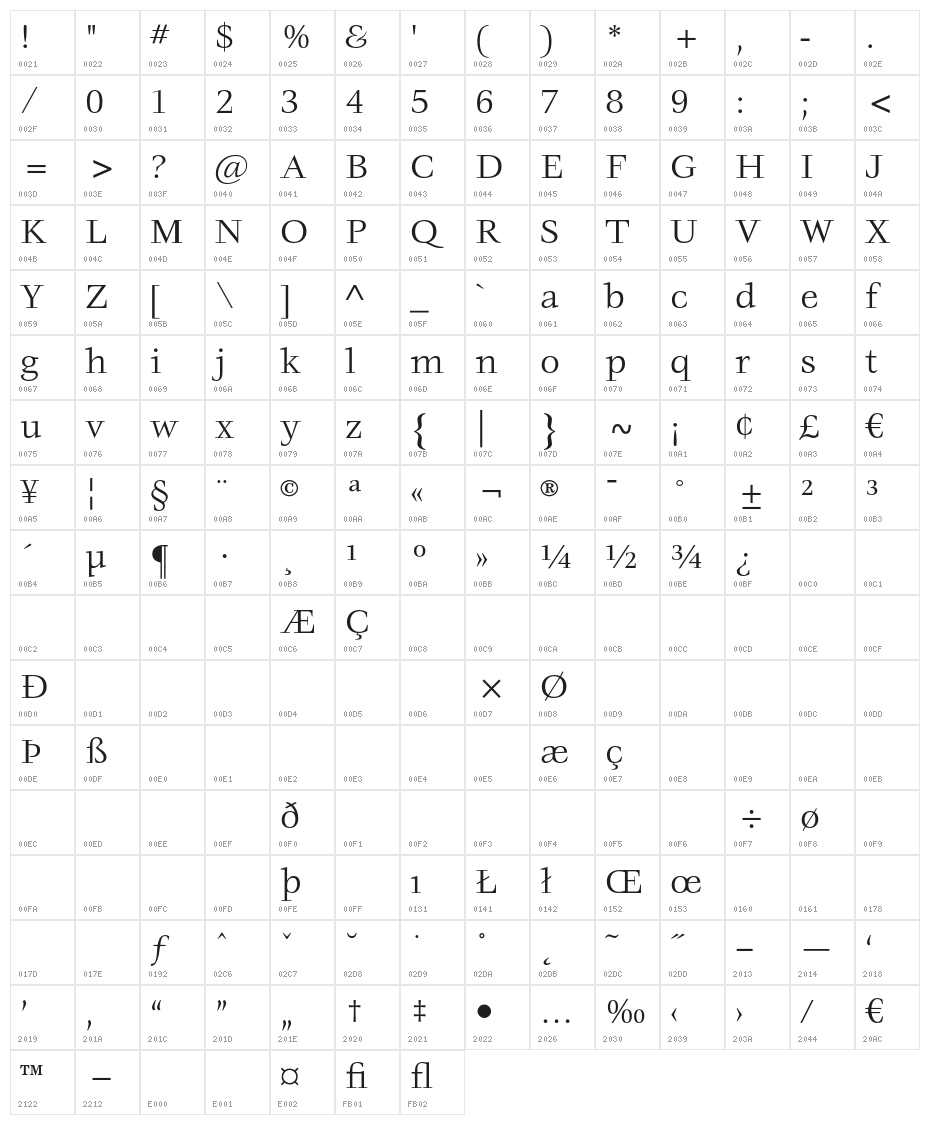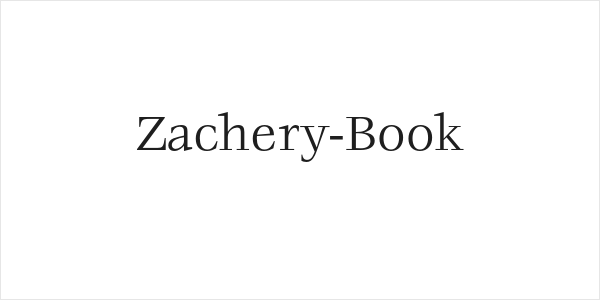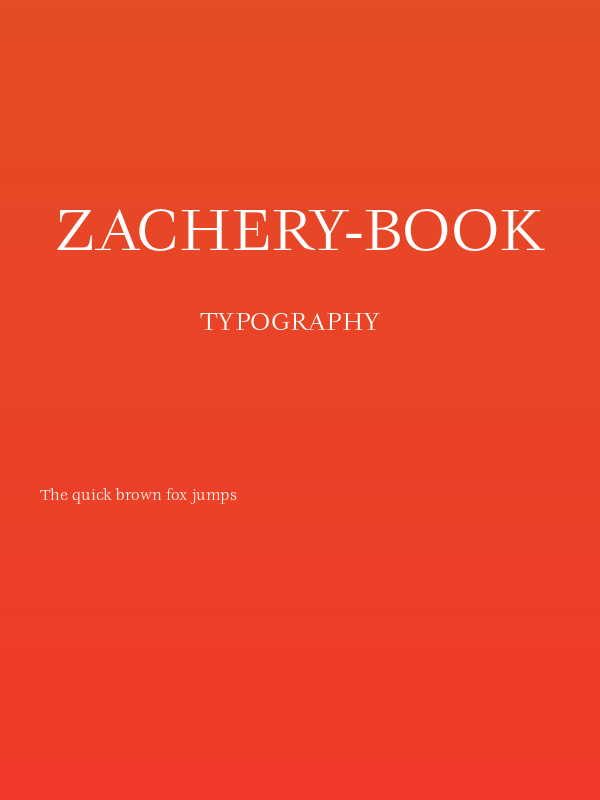
Zachery-Book Font
Zachery-Book Description
This font features a classic serif design with elegant and refined strokes. The uppercase letters are well-proportioned, showcasing a traditional serif style with slight variations in stroke width that add a touch of sophistication. The lowercase letters maintain a consistent style, with smooth curves and a balanced appearance. The numerals are clear and legible, making them suitable for various applications. Special characters are thoughtfully designed, maintaining the overall aesthetic of the font. This font exudes a timeless quality, making it versatile for both modern and classic design projects.
| Proposed Projects | Ideal for editorial design, book covers, formal invitations, and branding projects that require a touch of elegance. |